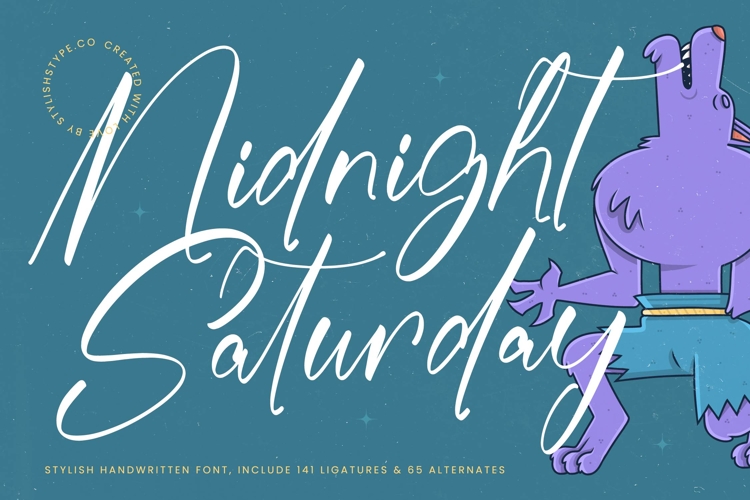
Midnight Saturday - Stylish Handwritten Font
Midnight Saturday is a stylish handwritten font that blends bold handwritten strokes with refined elegance. With its flowing curves, smooth ligatures, and artistic alternates, this typeface is ideal for projects that require both creativity and sophistication. Featuring 141 ligatures and 65 alternates, Midnight Saturday gives designers the flexibility to create custom, expressive lettering compositions with ease.
This font is excellent for branding. Perfect for logos, boutique shops, artisan labels, fashion brands, and lifestyle packaging, Midnight Saturday communicates originality and elegance. Its handwritten detail ensures that branding projects feel stylish, authentic, and memorable, making it a versatile choice for modern businesses.
In editorial and publishing, Midnight Saturday adds flair and character. Magazines, book covers, event flyers, and creative zines benefit from its organic flow and stylish rhythm. It creates editorial layouts that combine artistry with readability, ensuring that designs are both eye-catching and functional.
For web typography, this handwritten font adapts seamlessly across blogs, websites, online shops, and social media content. Its handwritten energy ensures that digital media projects feel creative, authentic, and stylish, helping brands and creators connect with audiences effectively.
Midnight Saturday also shines in advertising and marketing. From posters, product campaigns, and promotional designs to business cards, it captures attention with its playful yet elegant handwritten strokes. It ensures that advertising projects stand out while maintaining sophistication.